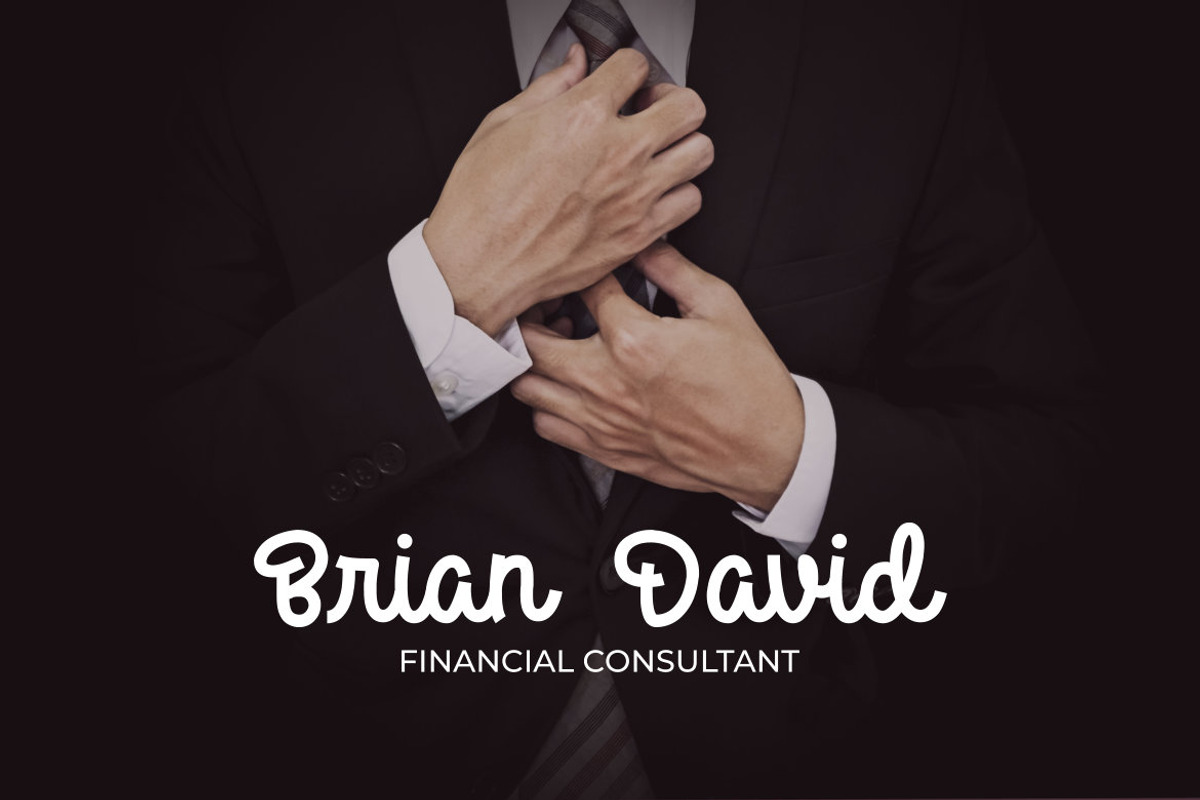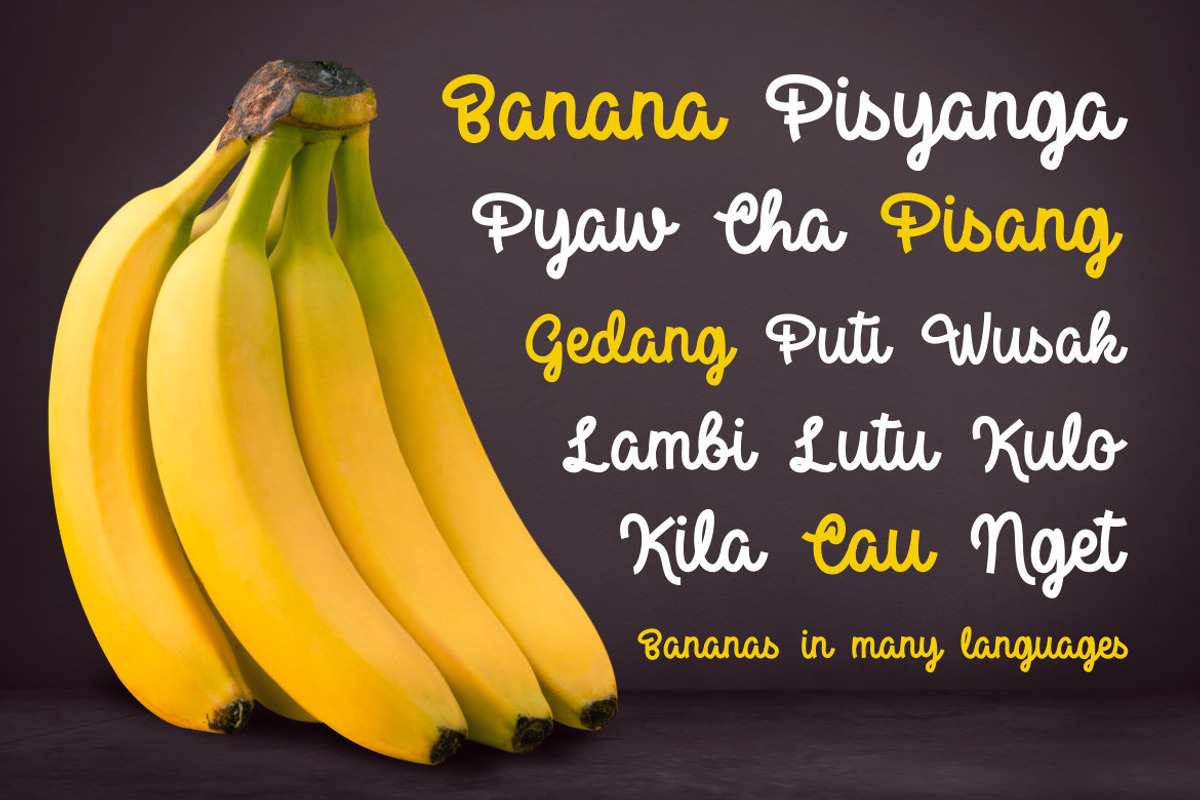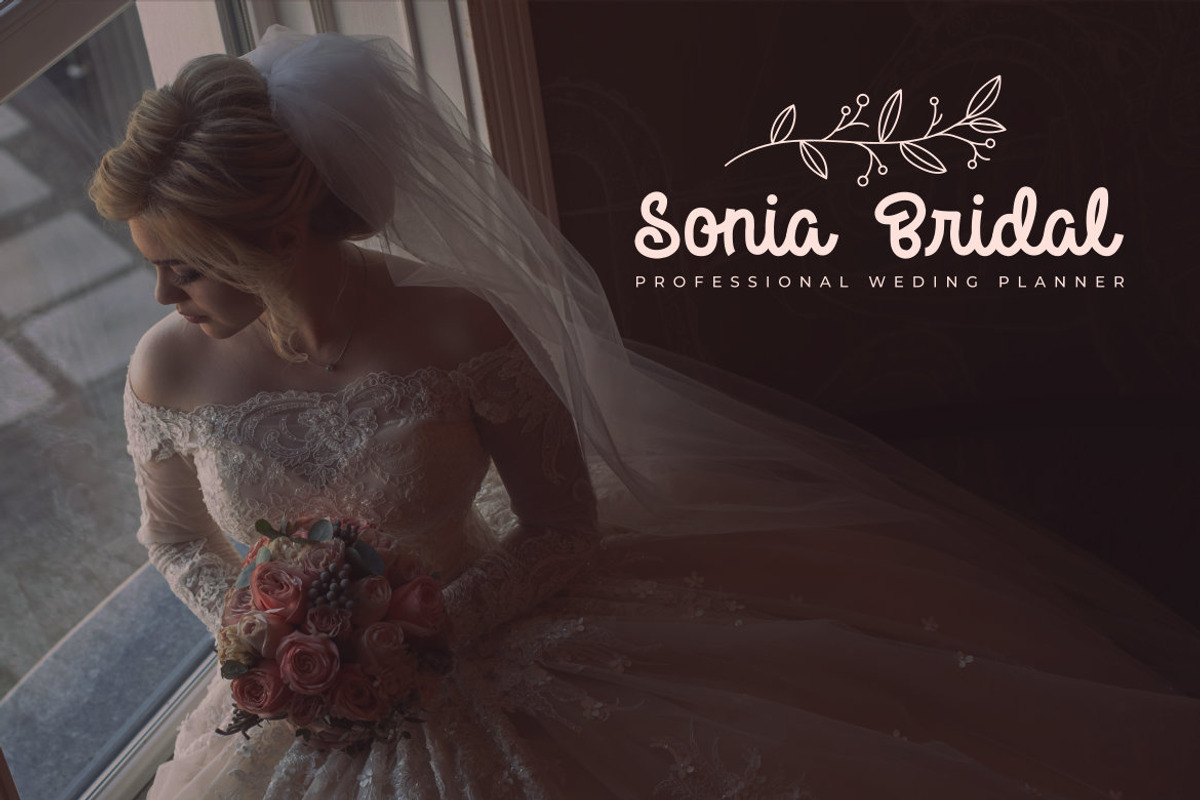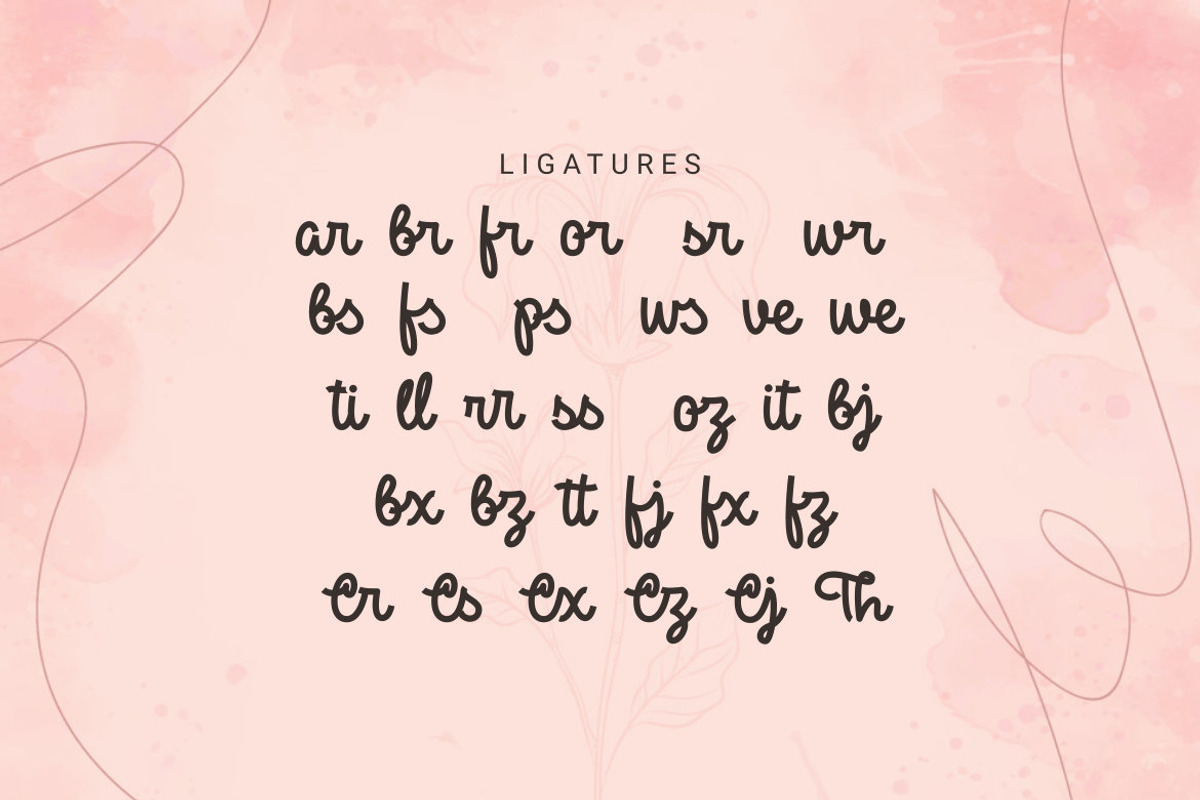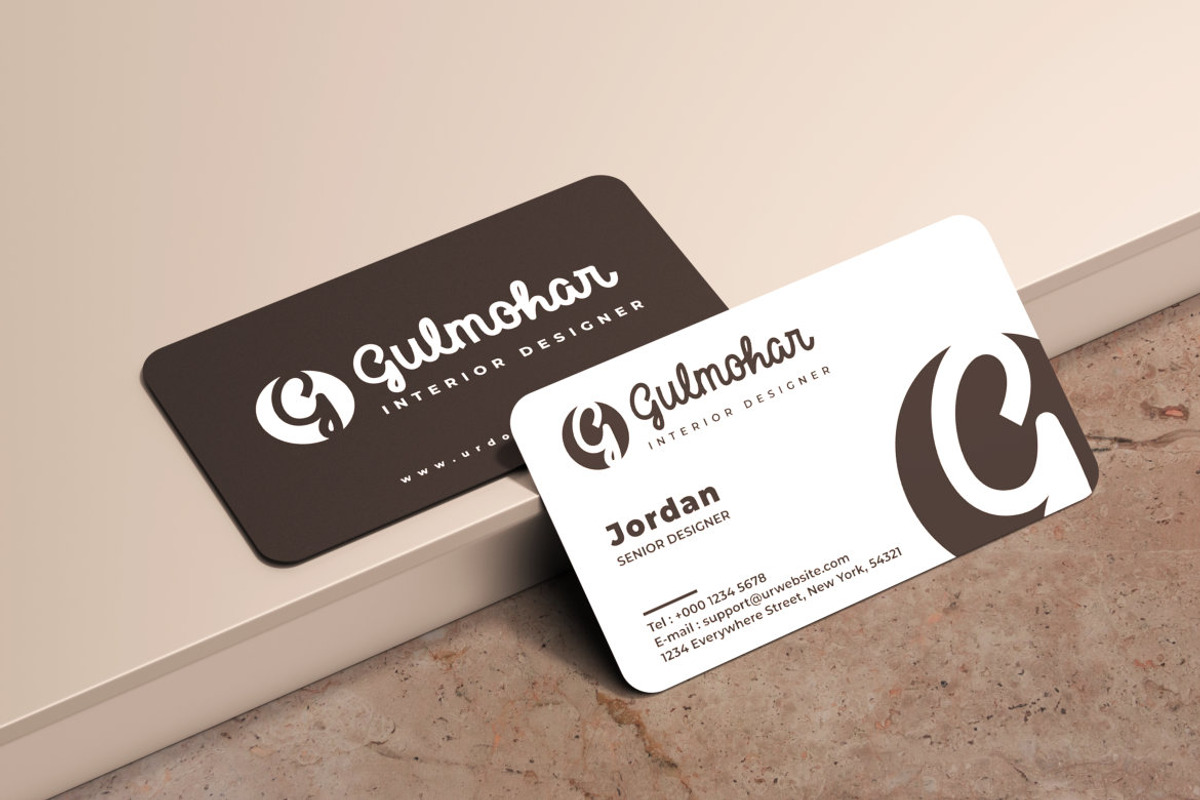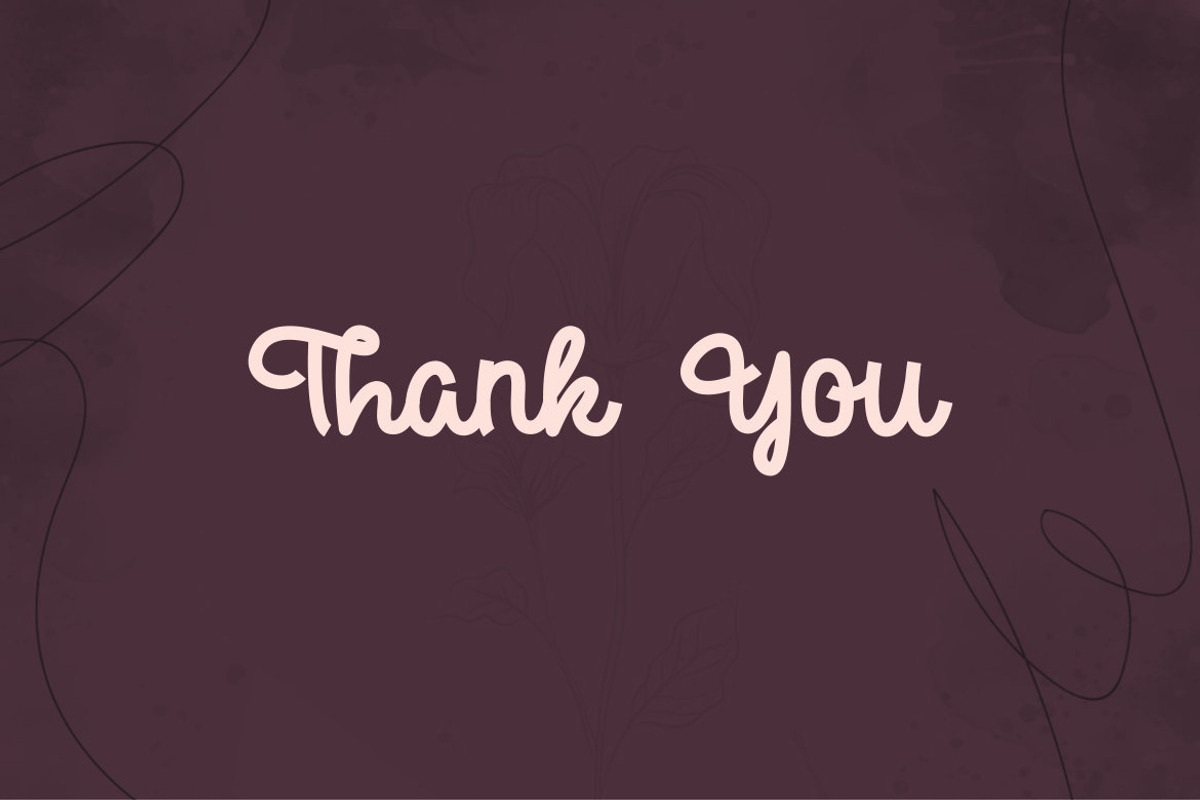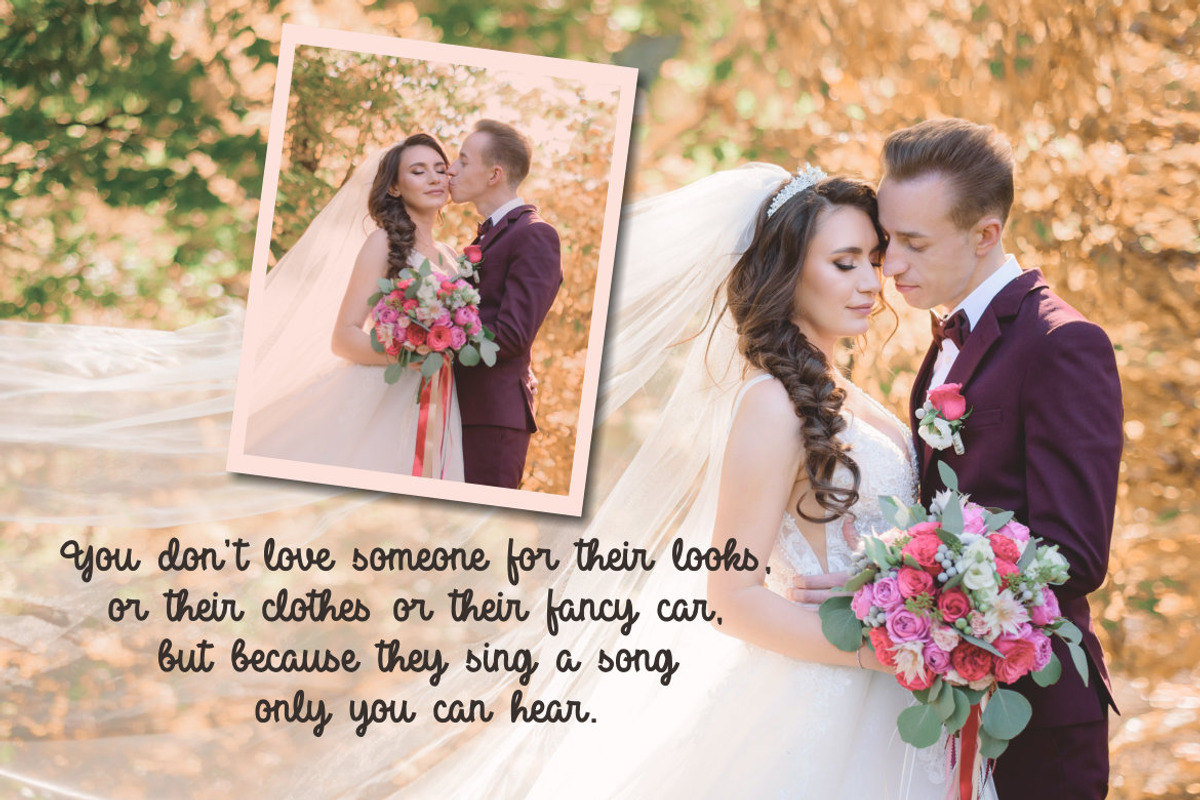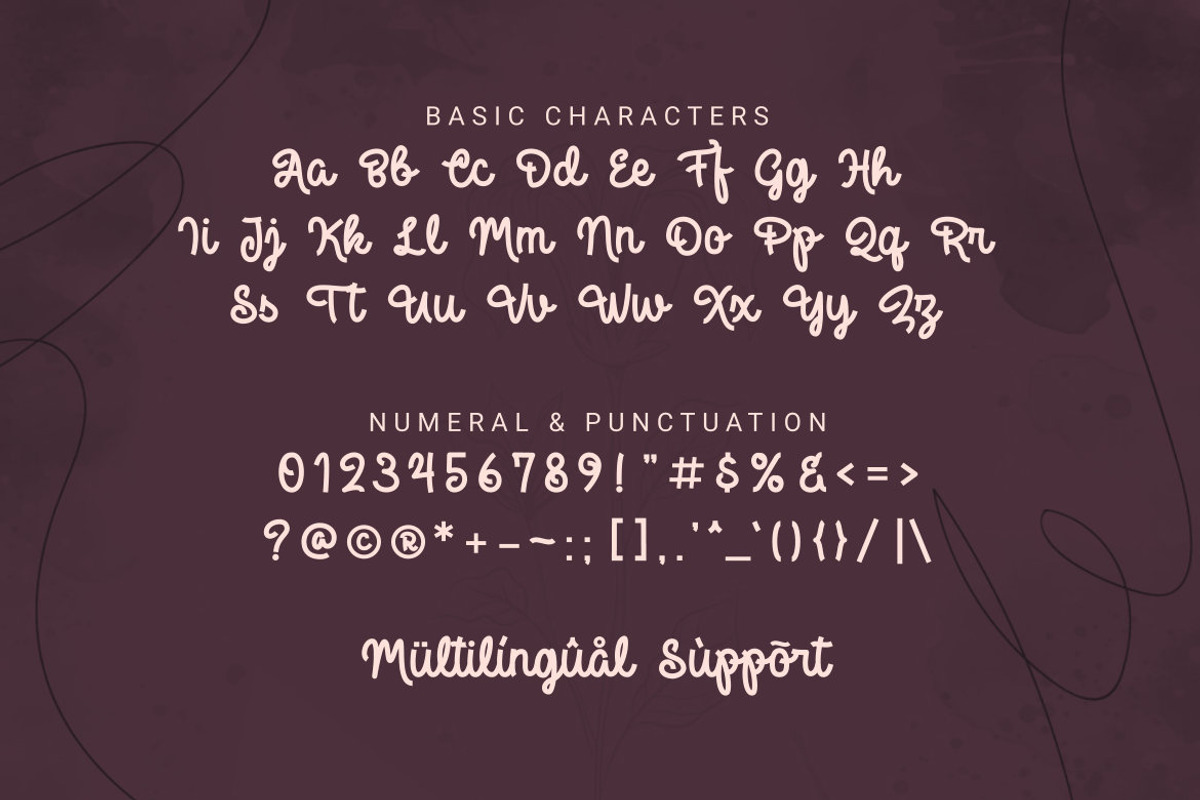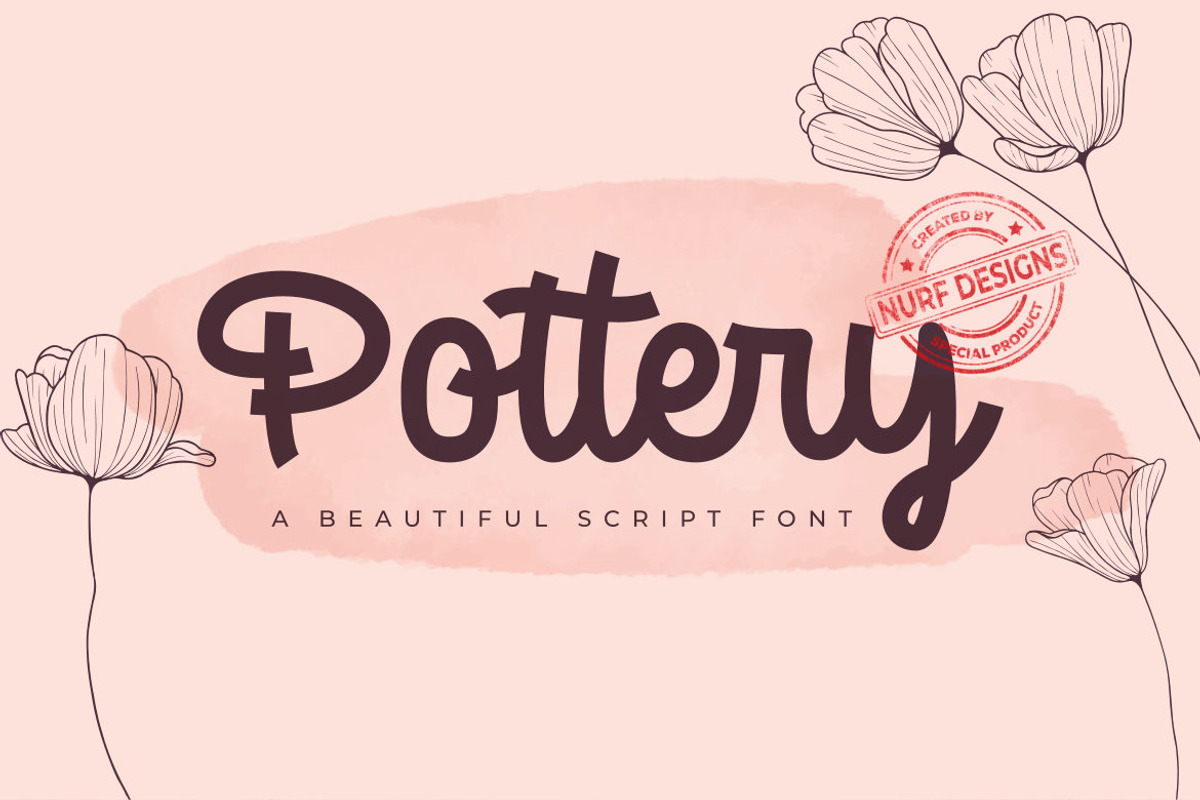
Pottery – A Beatiful Script Font
Pottery is a beatiful script font. This font is great for your next creative project such as logos, printed quotes, invitations, cards, product packaging, headers, Logotype, Letterhead, Poster, Apparel Design, Label, and etc. Pottery comes with uppercase, lowercase, numerals, punctuations, multilingual support .